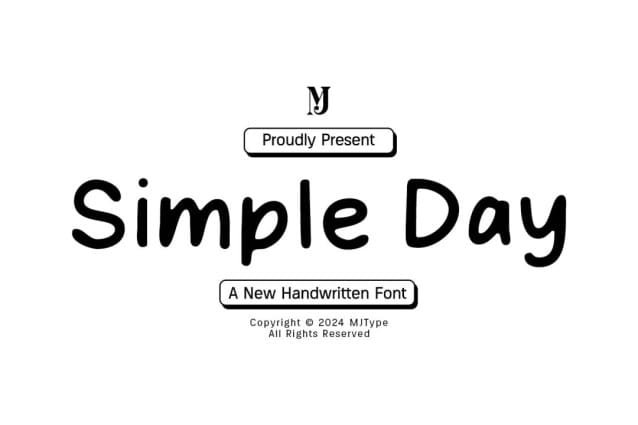
Simple Day Font
Simple Day Font is a simple and friendly handwritten font. Its natural and unique style makes it incredibly fitting to a large pool of designs. The only limit is your imagination!